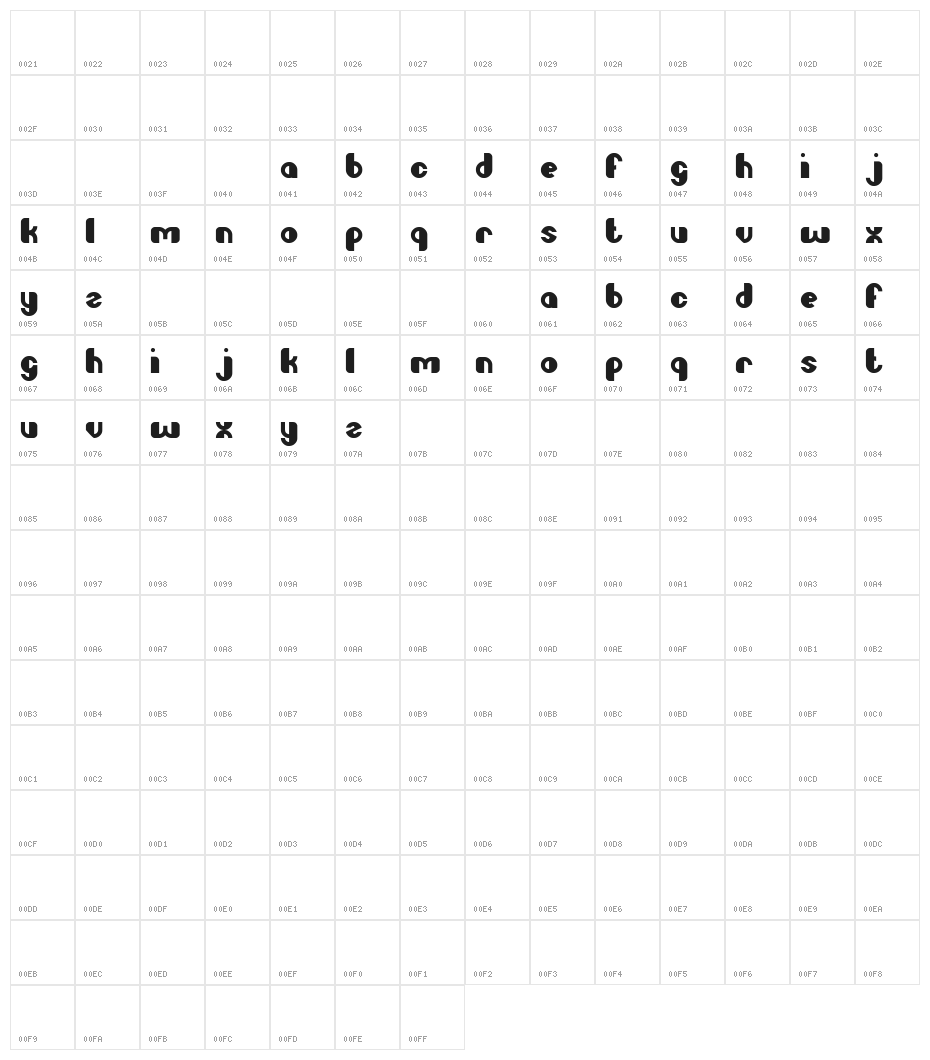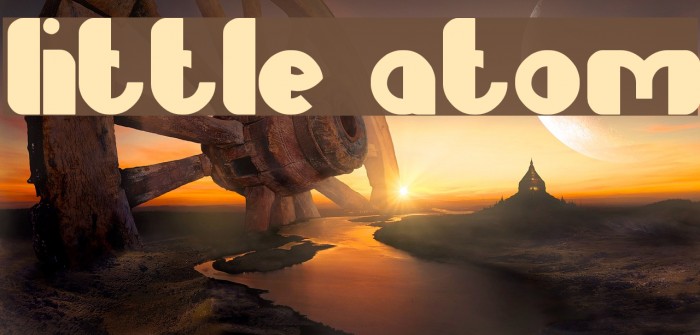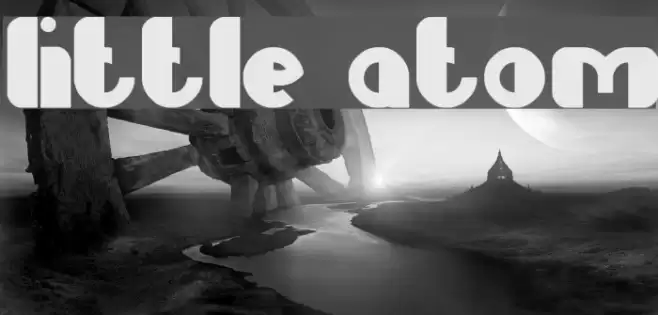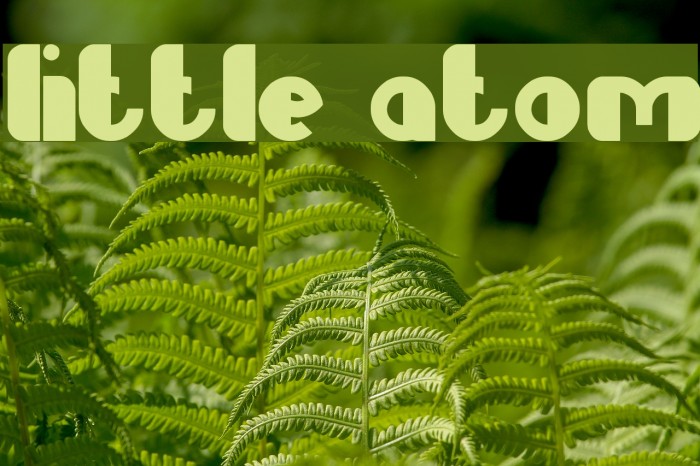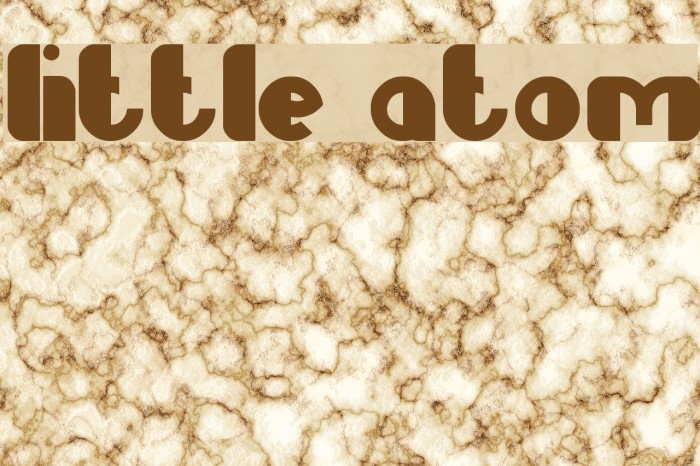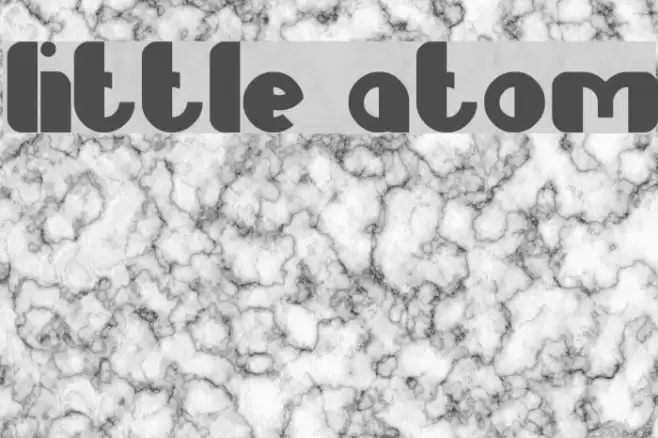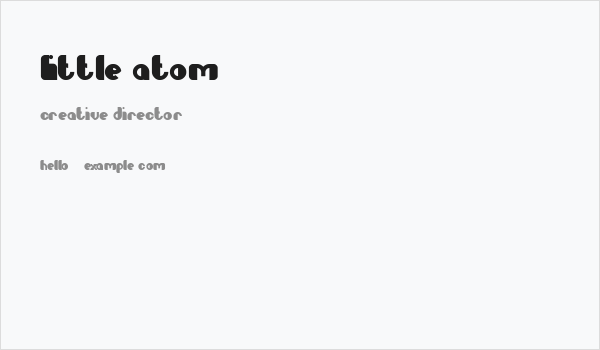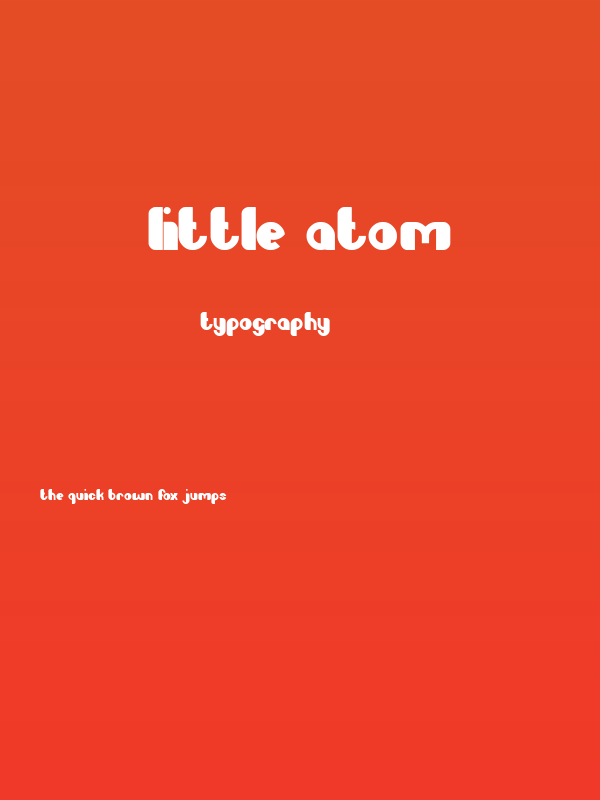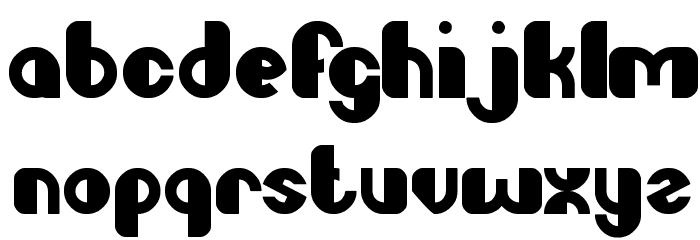
Little Atom Font
Little Atom Description
This font features a bold and playful design with rounded edges and a geometric structure. The characters are uniformly thick, creating a strong visual impact. The lowercase letters have a unique style, with some characters like 'a' and 'e' having a closed loop, while others like 'g' and 'y' have distinctive tails. The font's overall appearance is modern and slightly futuristic, making it suitable for creative and eye-catching designs. Its boldness ensures readability while maintaining a unique character. The consistent stroke width across all characters gives it a cohesive look, ideal for branding and display purposes.
| Proposed Projects | Ideal for branding, posters, headlines, and creative design projects that require a bold and modern aesthetic. |